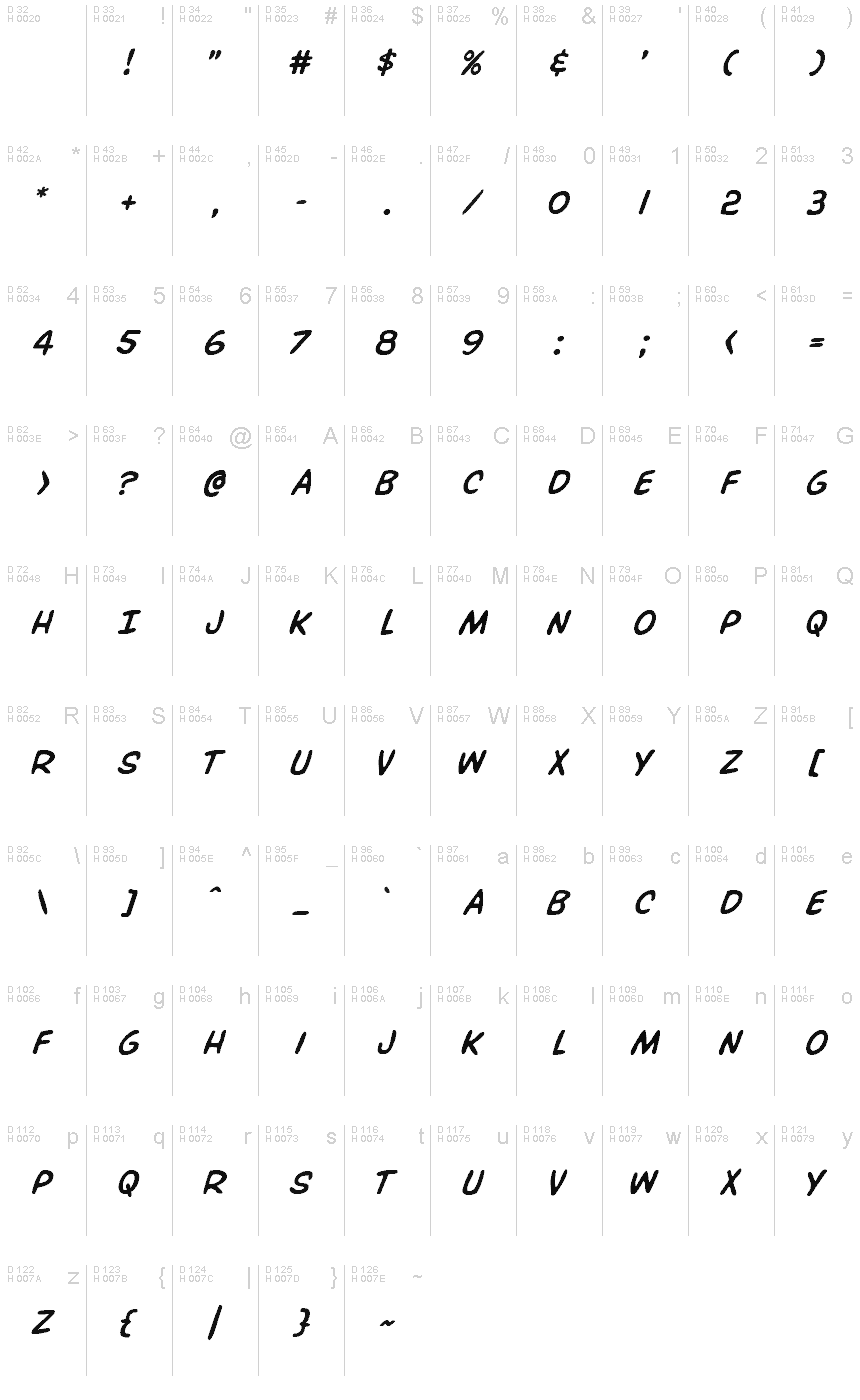
Overstreet Bible is a captivating display font that exudes a whimsical, comic-inspired charm. Designed by Daniel Zadorozny, this italic font effortlessly blends classic biblical influences with a modern, playful aesthetic. The bold, expressive strokes and distinctive letter forms command attention, making it an ideal choice for eye-catching headlines, playful branding, and vibrant illustrations.
Its versatile nature allows it to seamlessly transition between a range of design applications, from editorial layouts to packaging designs, where its unique character can truly shine.